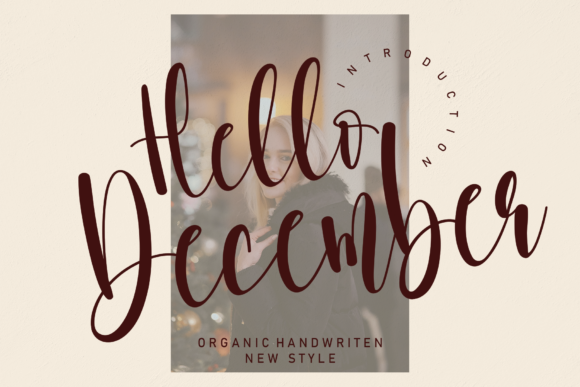
Adorn your designs with the enchanting allure of Hello December, a mesmerizing handwritten script font that emanates warmth and elegance. Crafted with impeccable precision by the skilled hands of Monogram, S.KOM., this font is a visual masterpiece that will elevate your creative projects to new heights.
Unleash your imagination and let your words dance gracefully across the page, enveloped in the charming embrace of Hello December. Its organic flow and impeccable character set make it the perfect choice for wall displays, where its delicate strokes will captivate all who behold it.
Transport your designs to a realm of romance and sophistication with Hello December. Its delicate curves and playful flourishes lend an air of timeless charm to wedding invitations, adding a touch of magic to your special day.
Harness the power of Hello December to create social media posts that resonate with your audience. Its expressive style will draw eyes and hearts alike, making your messages impossible to ignore.
Elevate your advertisements and product packaging with the artistry of Hello December. Its captivating presence will command attention and leave a lasting impression on your customers.
Express your creativity through product designs and labels adorned with Hello December. Its versatility knows no bounds, adapting seamlessly to a myriad of styles and aesthetics.
Let Hello December grace your photographs and watermarks, adding a touch of elegance and intrigue. Its graceful presence will transform your images into works of art.
Enchant your invitations and stationery with the timeless beauty of Hello December. Its delicate strokes will convey your heartfelt messages with a touch of whimsy and delight.
Embrace Hello December, the font that weaves magic into words, transforming your designs into captivating expressions of your creativity.